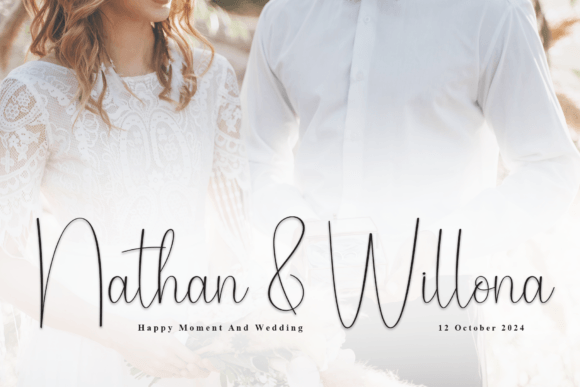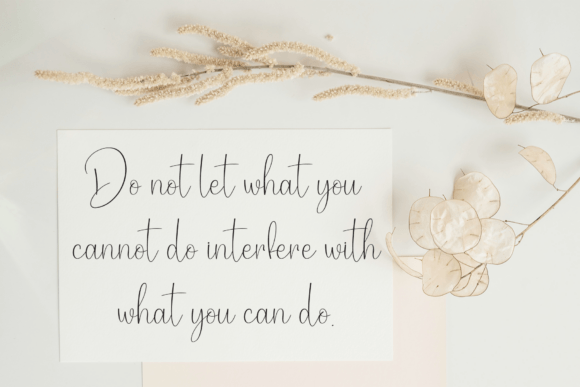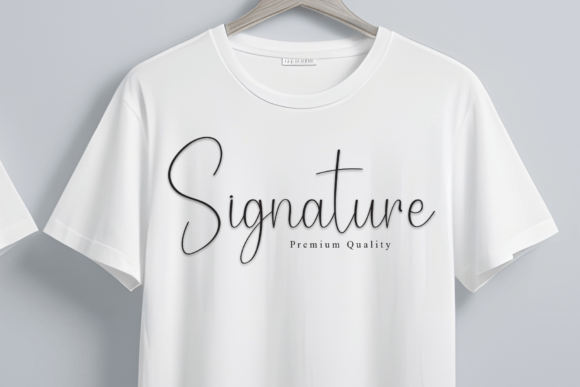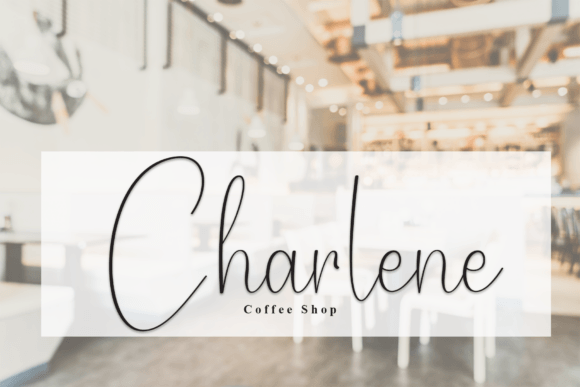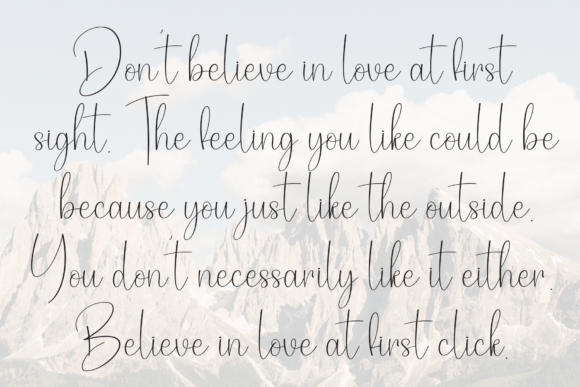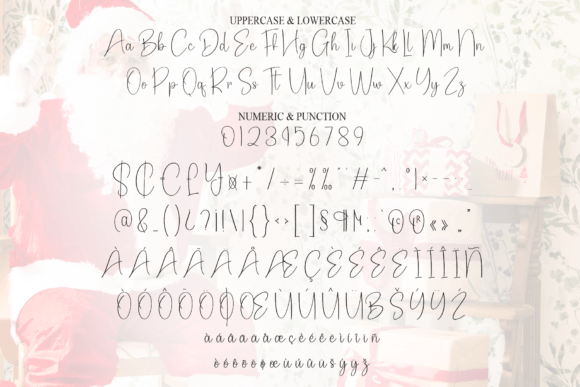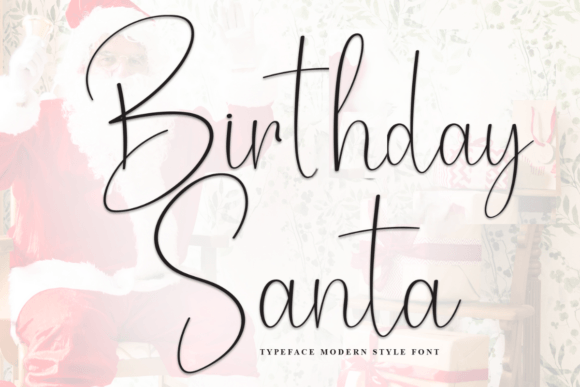
Introducing the Magical Birthday Santa Font: Elevate Your Designs with a Touch of Festive Flair
Are you tired of using the same old fonts for your designs? Do you want to add a dash of festive fun to your projects? Look no further than the Birthday Santa Font, a special creative product designed to give you an extraordinary experience. This delightful font is perfect for a wide range of applications, from wall displays and wedding invitations to social media post logos, advertisements, product packaging, and more.
As a designer or crafter, you’re always on the lookout for unique and versatile fonts to elevate your work. The Birthday Santa Font is a fantastic addition to your font collection, offering a playful and cheerful style that’s sure to capture the attention of your audience. Whether you’re creating:
- Wall displays that showcase your brand’s personality
- Wedding invitations that set the tone for a magical celebration
- Social media post logos that drive engagement and conversions
- Advertisements that grab attention and leave a lasting impression
- Product packaging that stands out on store shelves
- Product designs that reflect your brand’s values and aesthetic
- Labels that add a personal touch to your products
- Photography that tells a story through creative typography
- Watermarks that protect your content with style
- Invitations that invite friends and family to join in the fun
- Stationery that showcases your personal brand
The Birthday Santa Font is the perfect choice. Its tasteful handwriting style and latest design make it an excellent addition to any project that requires a touch of festive flair.
Why Choose the Birthday Santa Font?
So why choose the Birthday Santa Font over other fonts on the market? Here are just a few reasons:
- Unique and festive style: The Birthday Santa Font offers a one-of-a-kind design that’s sure to make your projects stand out
- Versatility: Use the font for a wide range of applications, from digital designs to print materials